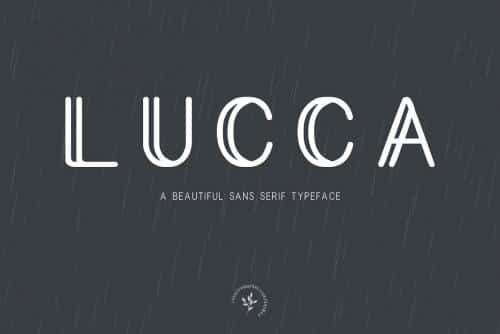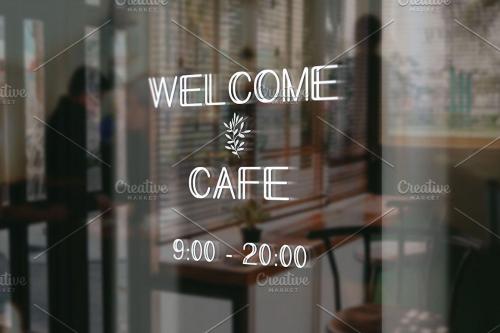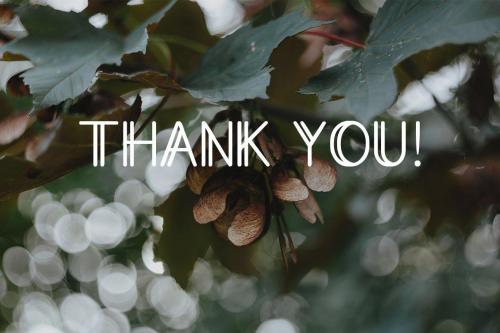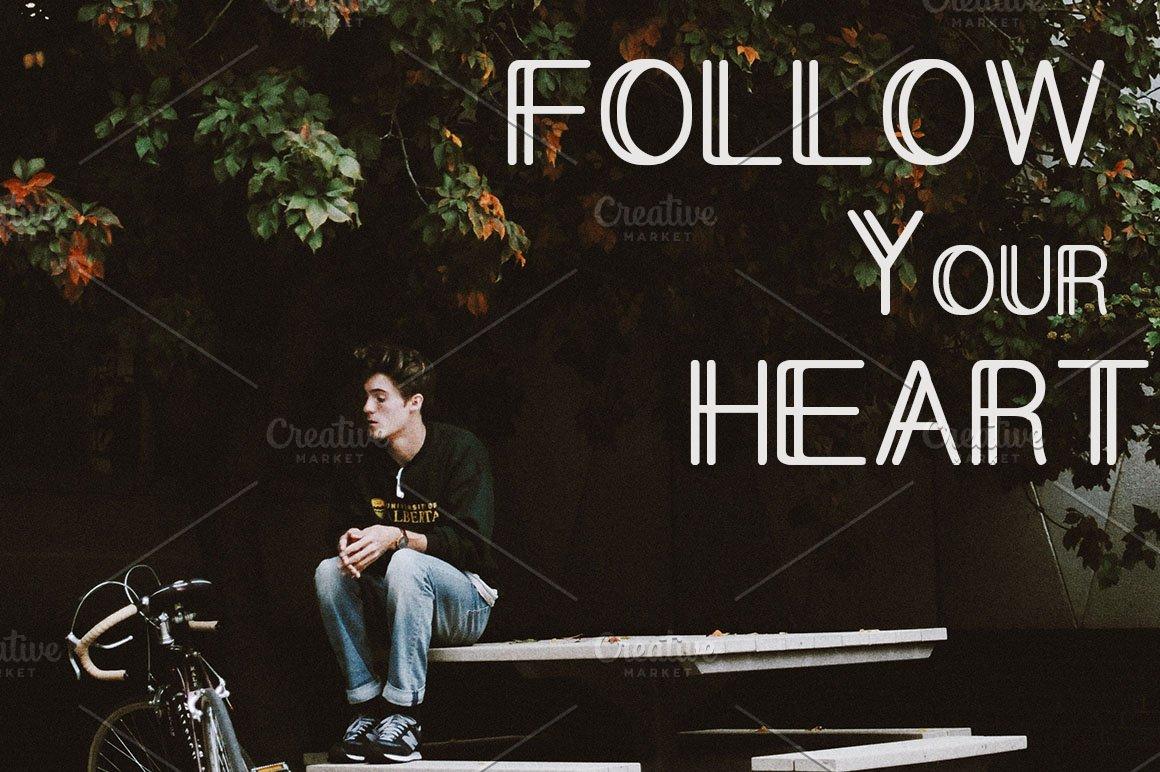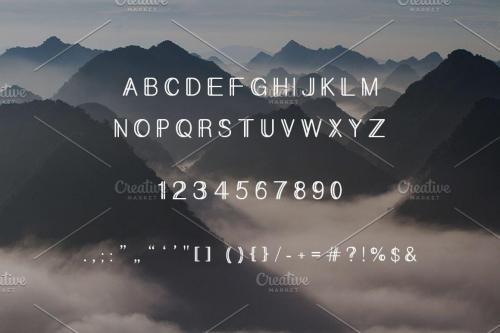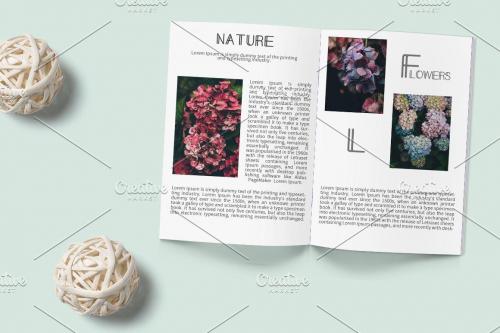
Lucca a beautiful sans serif typeface. This “Lucca Font” is well suited for various design projects, such as logos, advertising, quotes, packaging design and others.